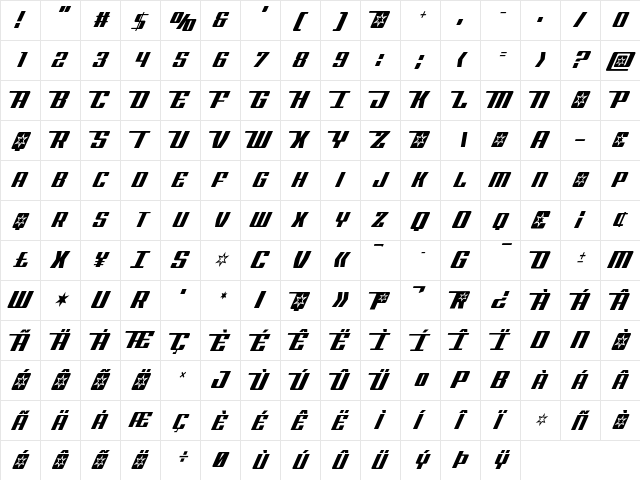
Rocket Pop Condensed Condensed
Design Context for Rocket Pop Condensed Typeface
Rocket Pop Condensed is a composed and adaptable typeface that performs quietly and consistently across a wide range of design contexts. The condensed width makes it efficient for tight spaces without sacrificing legibility.